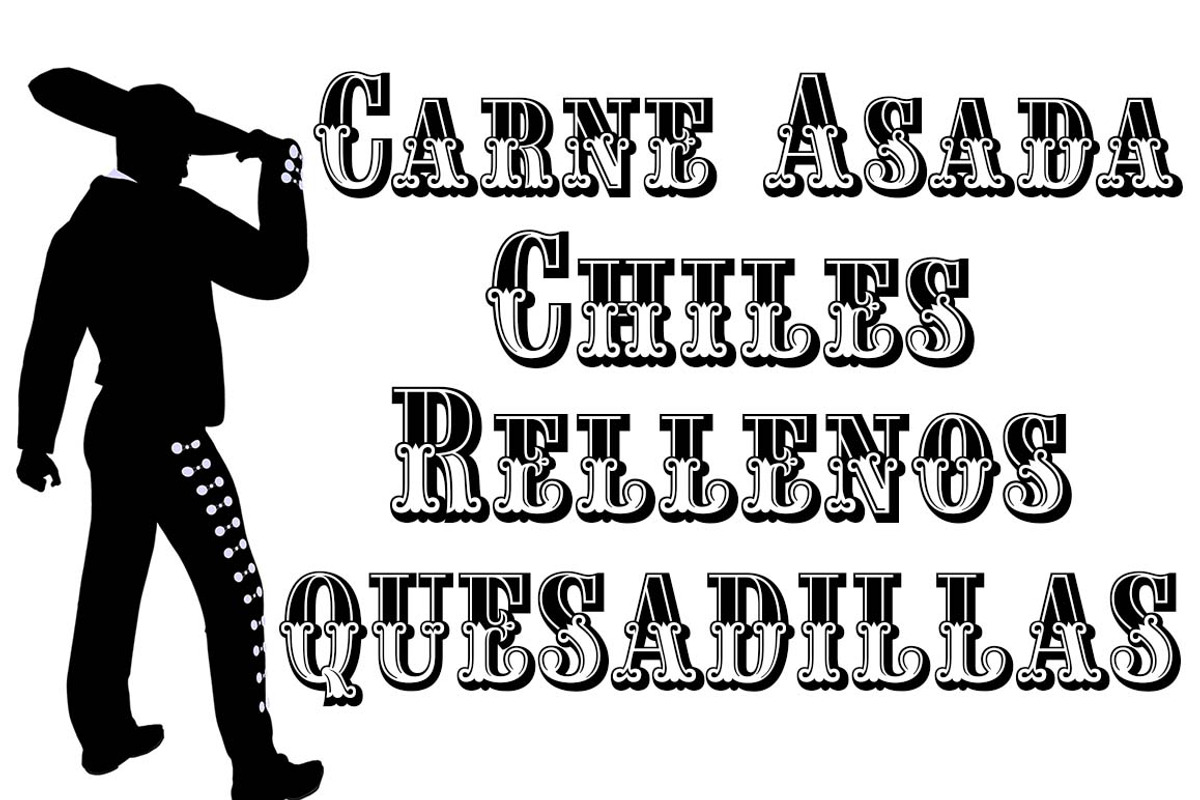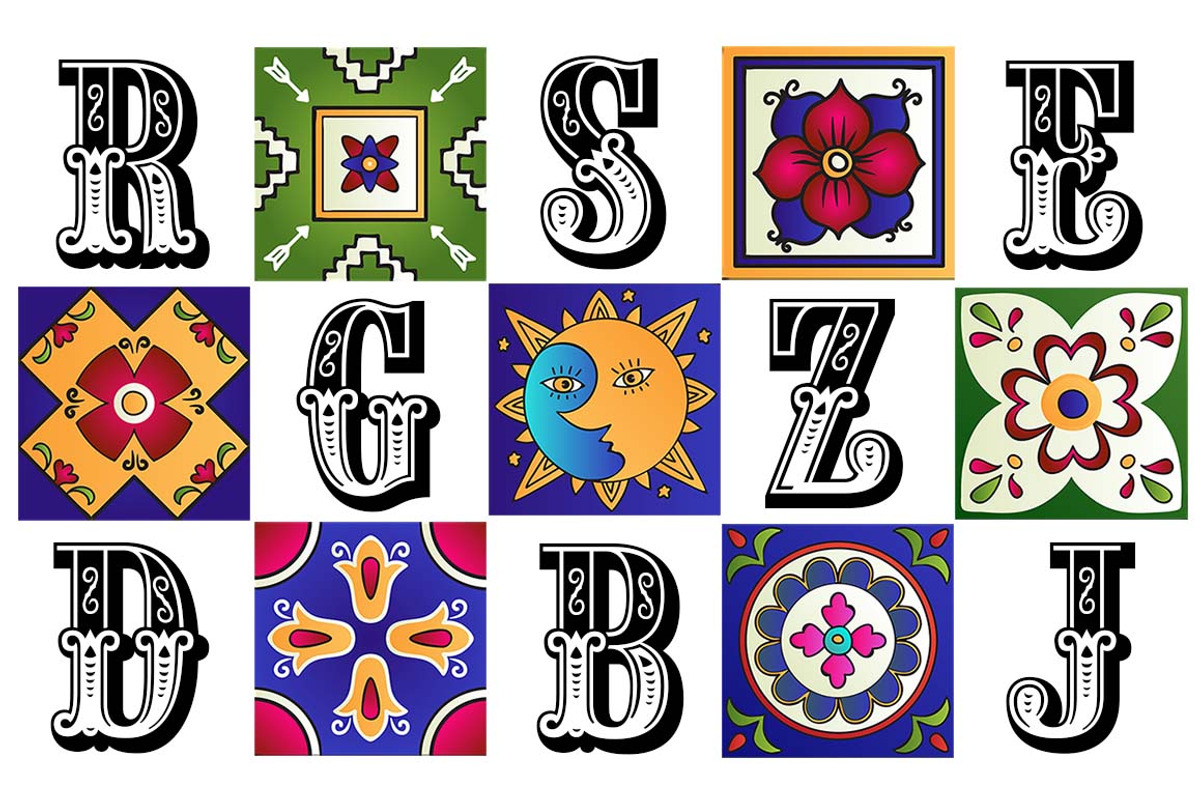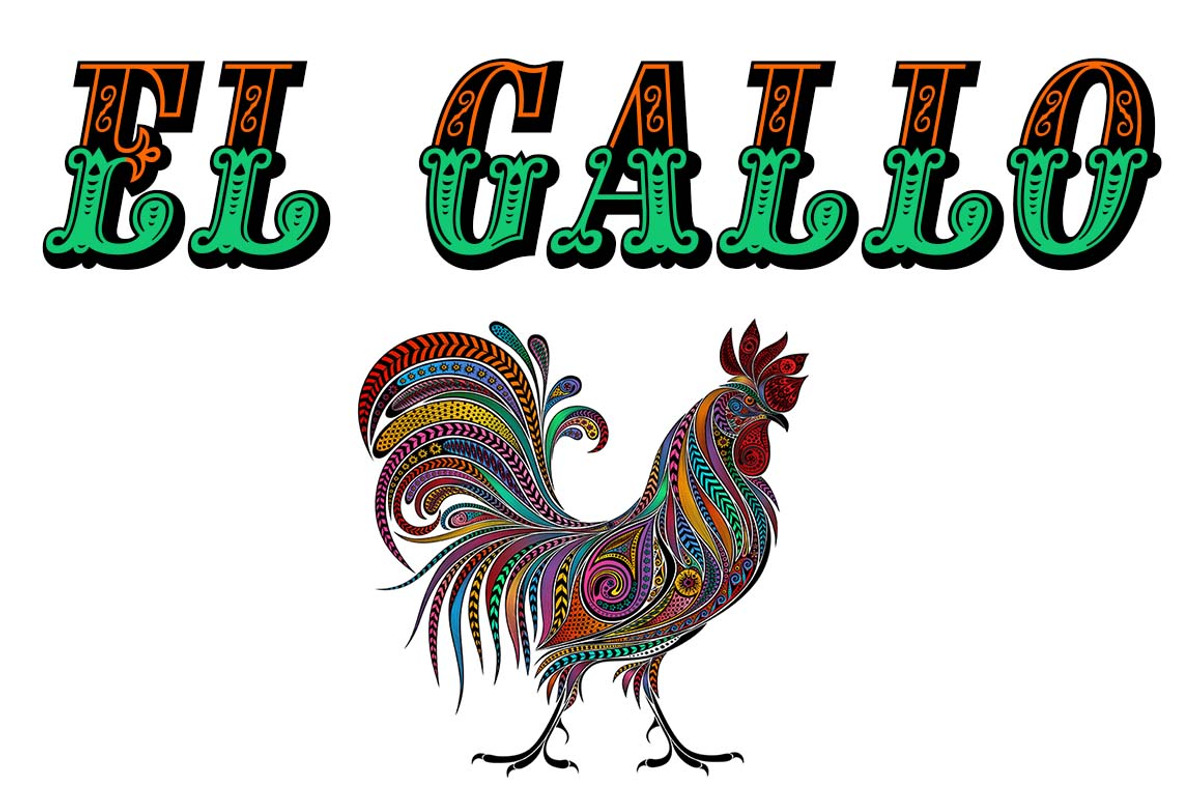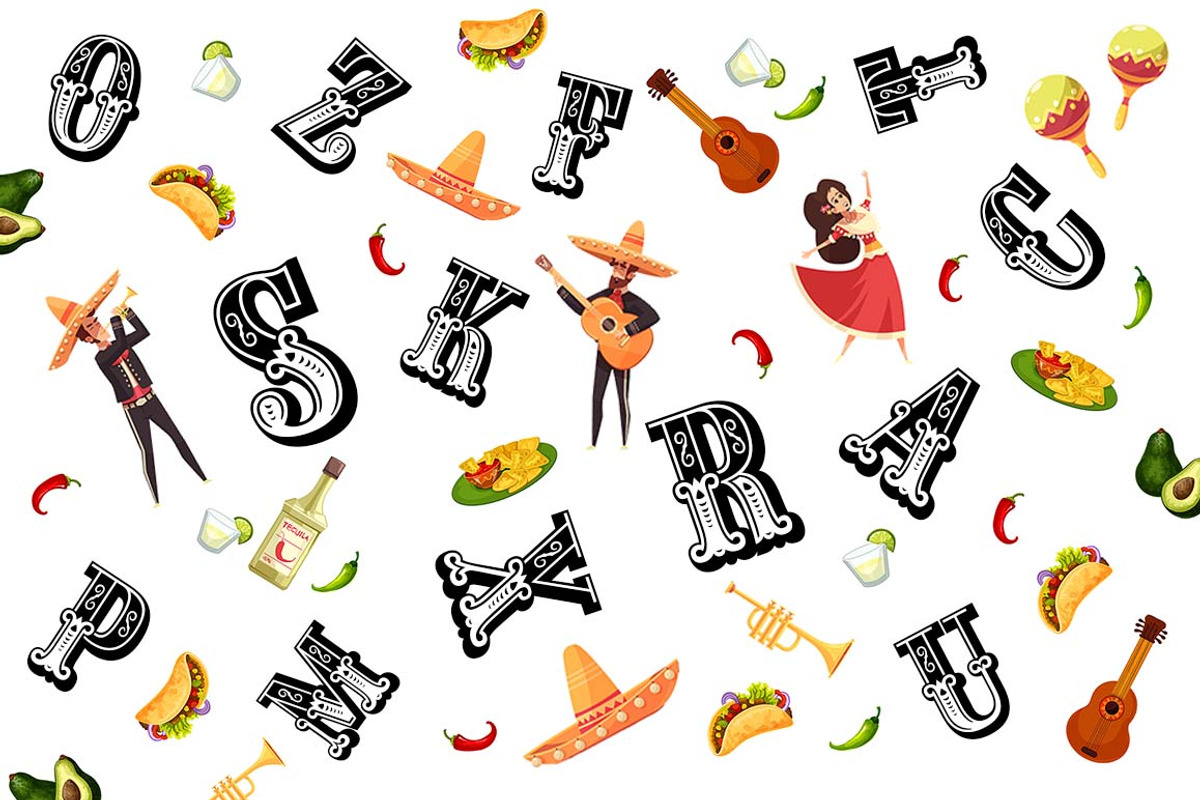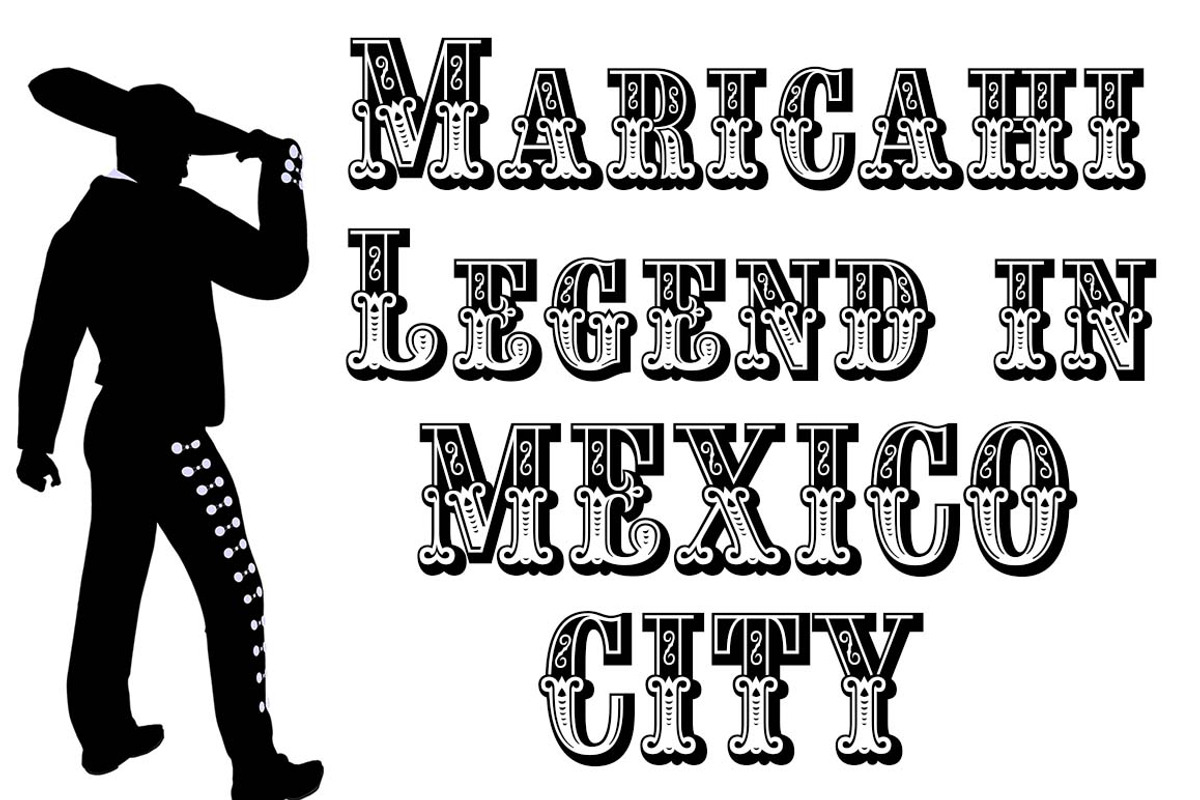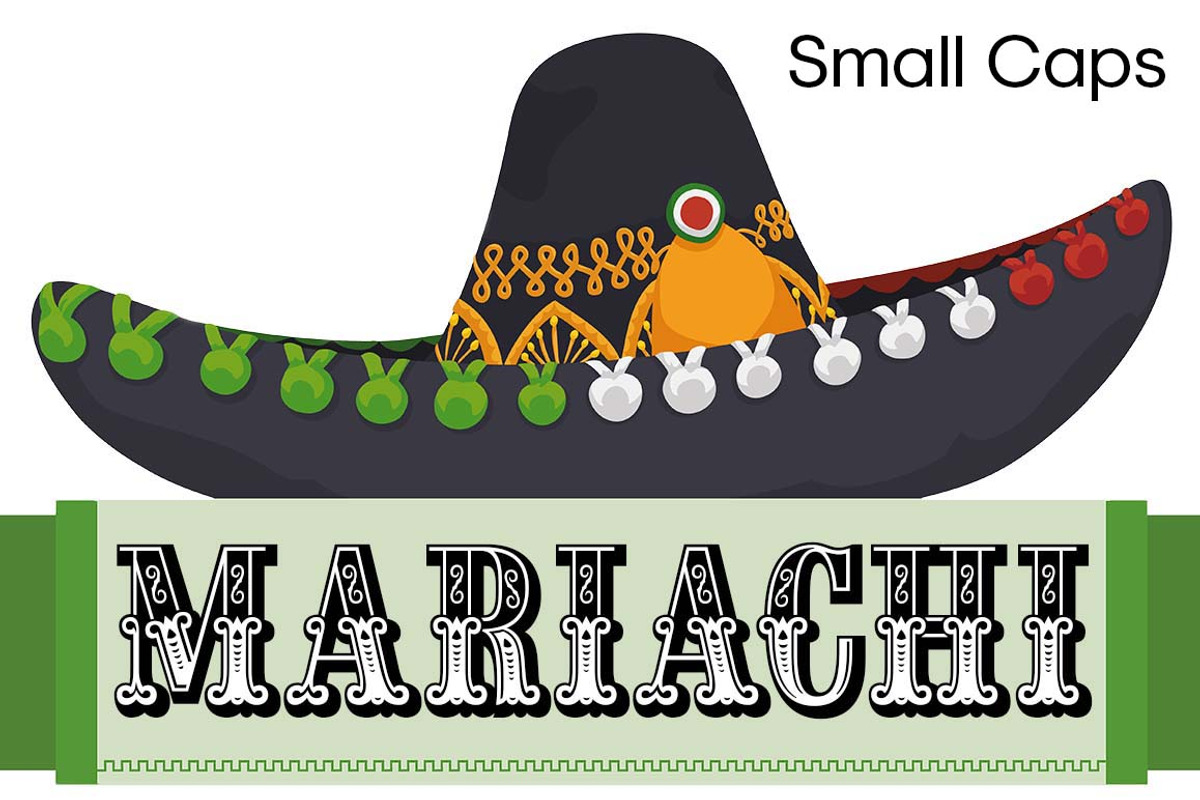
Mariachi Small Caps
Mariachi is a new condensed version of our Maison Luxe font which is a revival of an old 1800's classic ornate French font. This new 2021 condensed version takes this old classic to an all new level by adding small caps, italics and a new black version. Mariachi is perfect for headlines and logos from advertising to product labels, t-shirt lettering and restaurant menus.
Fill fonts are also part of this family, new to this font style is the half fill font for creating a two color effect on the letters, you'll need an application that works in layers to use the fill fonts in Mariachi.
The regular fill font for Mariachi isn't meant to be used as a stand alone font so we've created a solid black version with thicker serifs on top and adjusted outlines throughout for a better appearance as a solo font. We hope you enjoy Mariachi as much as we did making it.
The difference between Mariachi and our Mi Casa font is that Mariachi has a squared off shadow on the top half of the letters.